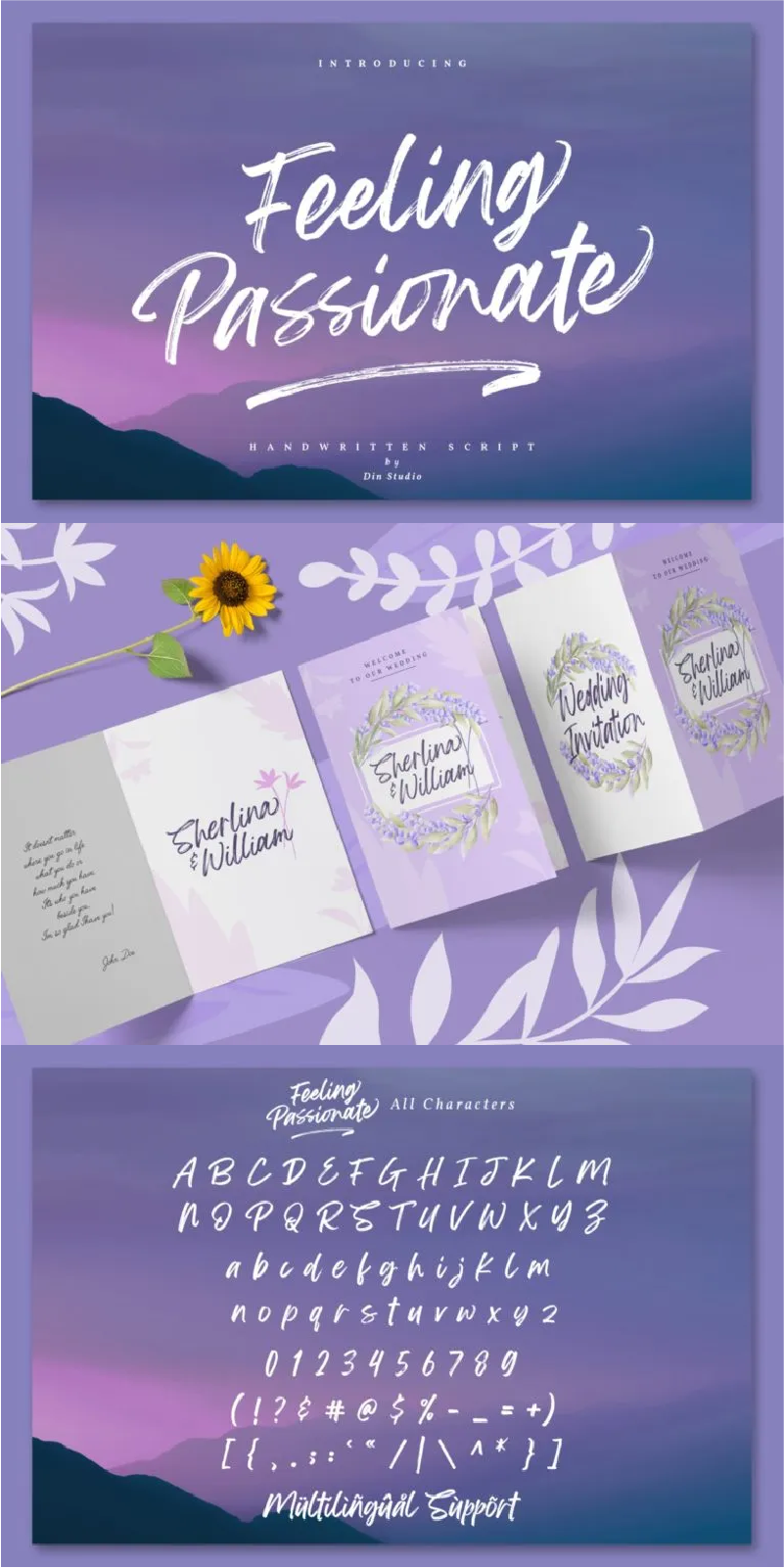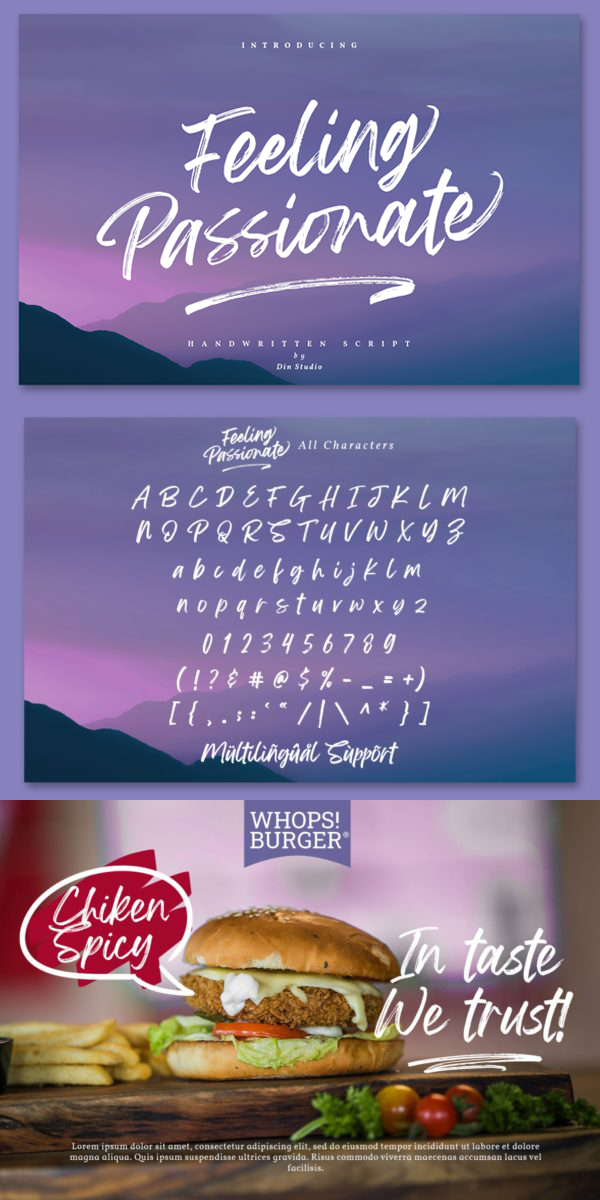
Feeling Passionate Font
About Feeling Passionate
Feeling Passionate is a casual and beautiful brush font. It will make your design projects more beautiful. This font is suitable for any design like brandings, fashions, printed templates, quotes, weddings, etc. See the previews above to get some inspiration on how you can use them. Happy Designing!
- 78 Beautiful Alternates
- 15 Beautiful Ligatures
- 52 Swashes
- Multi-lingual Supports